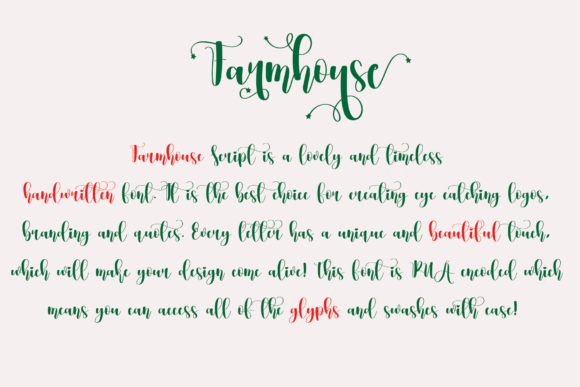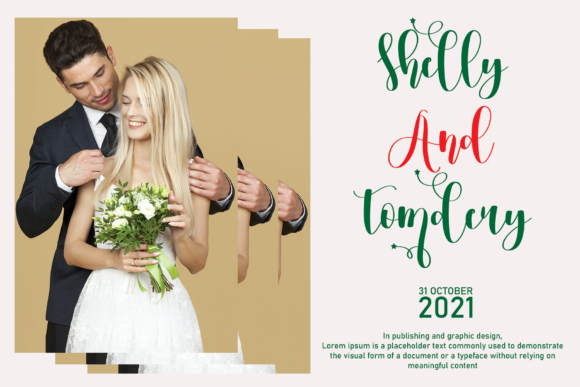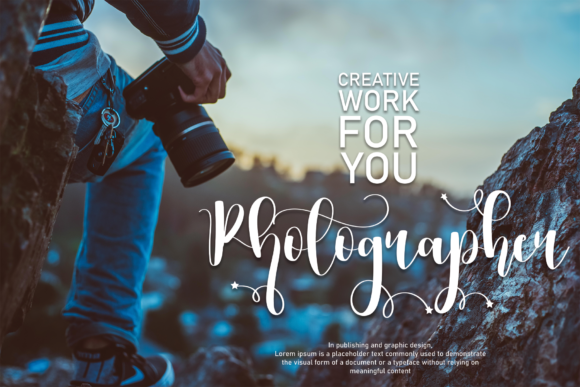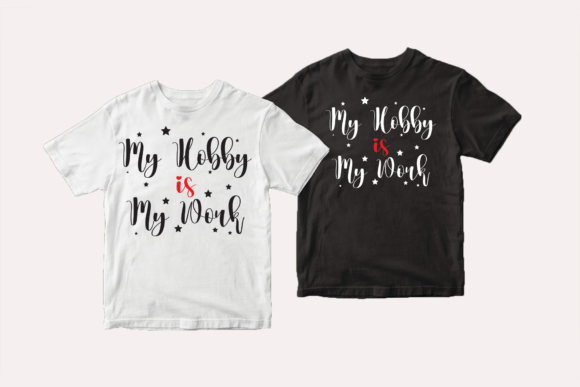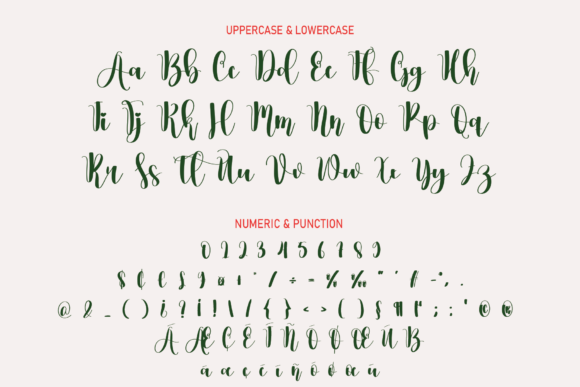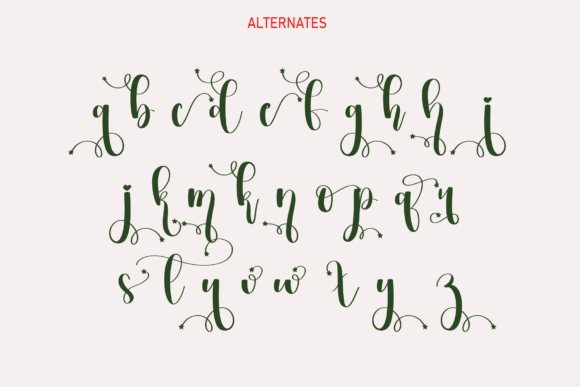
Introducing Farmhouse Font: A Romantic and Sweet Calligraphy Typeface
Are you looking for a font that adds a touch of luxury and elegance to your design projects? Look no further than Farmhouse Font, a beautiful calligraphy typeface that is sure to capture your heart. With its unique and charming characters that dance along the baseline, Farmhouse Font is the perfect choice for designers and crafters who want to add a romantic and sweet touch to their work.
What Makes Farmhouse Font Special?
Farmhouse Font is a standout typeface that boasts a range of features that make it a must-have for any designer or crafter. Here are just a few of the things that make Farmhouse Font special:
- Romantic and Sweet: Farmhouse Font has a romantic and sweet feel that is perfect for designs that require a touch of elegance and sophistication.
- Dancing Characters: The characters in Farmhouse Font dance along the baseline, creating a sense of movement and energy that adds visual interest to any design.
- Luxury Spark: Farmhouse Font is designed to add a luxury spark to any design project, making it perfect for high-end branding, packaging, and marketing materials.
- PUA Encoded: Farmhouse Font is PUA encoded, which means that you can access all of the amazing glyphs and ligatures with ease.
PUA (Private Use Area) encoding is a way of encoding fonts that allows designers to access additional characters and glyphs that are not available in standard font encodings. In the case of Farmhouse Font, PUA encoding means that you can access a range of beautiful glyphs and ligatures that will take your designs to the next level.
How to Use Farmhouse Font in Your Designs
Farmhouse Font is easy to use and can be incorporated into a range of design projects, from branding and packaging to marketing materials and digital crafts. Here are a few tips for using Farmhouse Font in your designs:
- Pair it with Other Fonts: Farmhouse Font pairs beautifully with other fonts, so don’t be afraid to experiment with different combinations to find the perfect look for your design.
- Use it for Headlines: Farmhouse Font is perfect for headlines and titles, where its elegant and sophisticated feel can really shine.
- Add it to Your Digital Crafts: Farmhouse Font is a great addition to digital crafts, such as printable art, planners, and journals.
Why Designers and Crafters Love Farmhouse Font
Farmhouse Font has quickly become a favorite among designers and crafters, and it’s easy to see why. Here are just a few reasons why Farmhouse Font is a must-have for any creative:
- Unique and Charming: Farmhouse Font has a unique and charming feel that sets it apart from other fonts.
- Elegant and Sophisticated: Farmhouse Font has an elegant and sophisticated feel that is perfect for high-end designs.
- Easy to Use: Farmhouse Font is easy to use and can be incorporated into a range of design projects.
In conclusion, Farmhouse Font is a romantic and sweet calligraphy typeface that is sure to add a luxury spark to any design project. With its unique and charming characters, PUA encoding, and elegant feel, Farmhouse Font is a must-have for designers and crafters who want to take their designs to the next level. Whether you’re looking to create high-end branding, packaging, or marketing materials, or simply want to add a touch of elegance to your digital crafts, Farmhouse Font is the perfect choice.